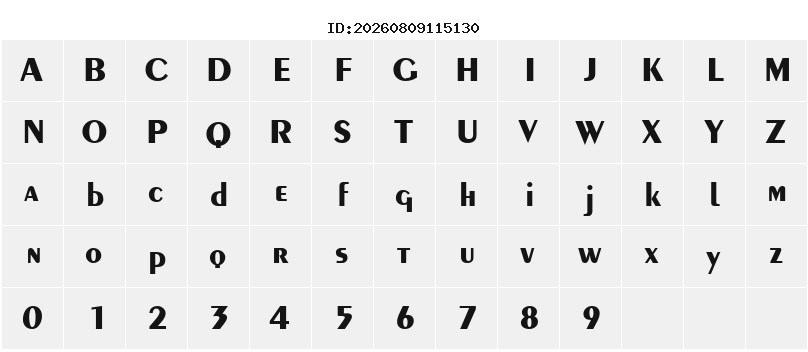
• Font Name: PeilotDB
• Full Font Name: PeilotDB Bold
PeilotDB.ttf is a modern, elegant sans-serif font designed for ultimate readability and visual harmony. Perfect for branding, headlines, web design, and print materials.